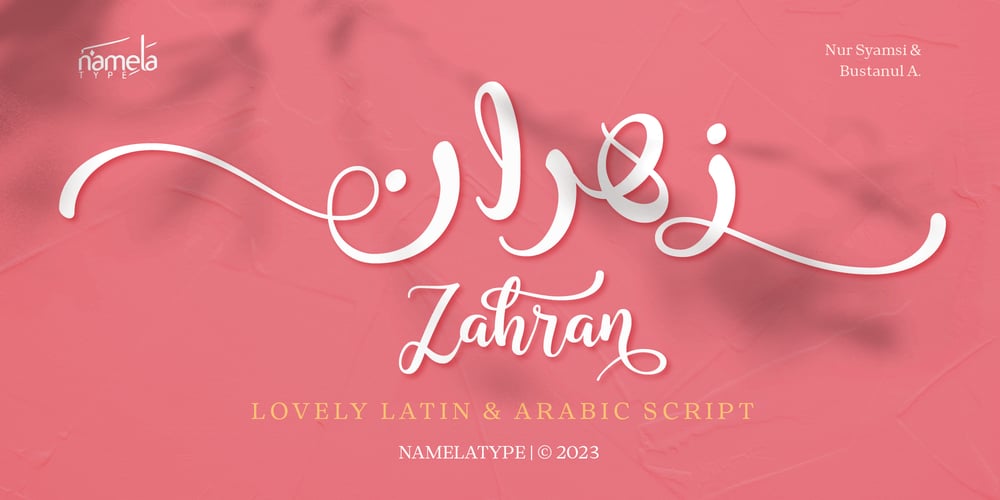
Zahran
Zahran font
Zahran Font Family was designed by Nur Syamsi, Bustanul Arifin and published by NamelaType. Zahran contains 2 styles and family package options. Zahran is a lovely Latin and Arabic handwritten script, Inspired by modern calligraphy style. This style is a challenge for me in designing Arabic letters, I tried joining Arabic on one side so that the baseline shape is dynamic.Come with many feature; Stylistic alternate, character variant (cv01 to cv12), ligatures, multilingual characters, begining and ending swash, and lovely connecter for lowercase, that can be accessed with opentype feature.Zahran is perfect for branding project, product packaging, tile, logo, wedding, quotes and where ever you need lovely design.